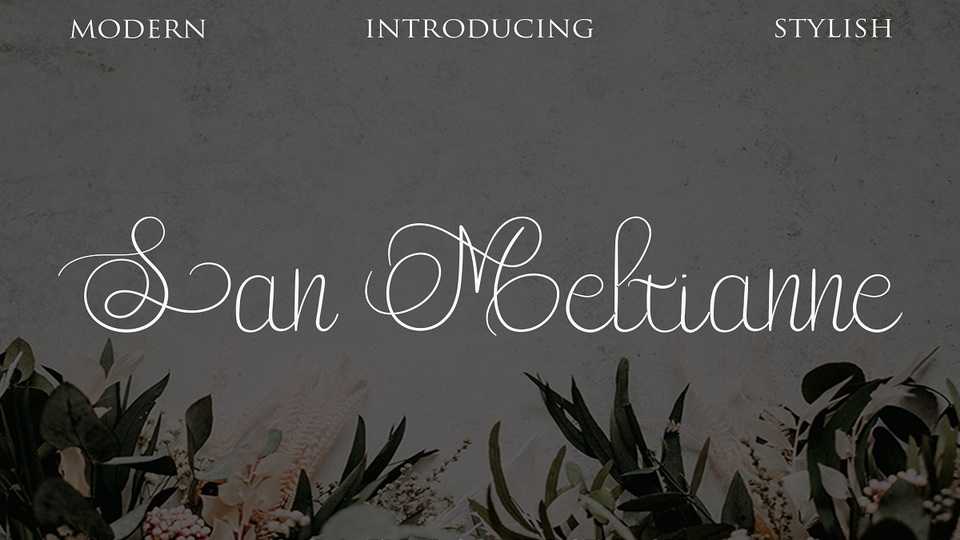
Download San Meltianne font, a beautiful and refined script typeface. It has a classy, elegant and modern look that can be used for logos, branding, invitations, stationery, wedding designs, social media posts, and much more!
Designer: Fontmine Studio